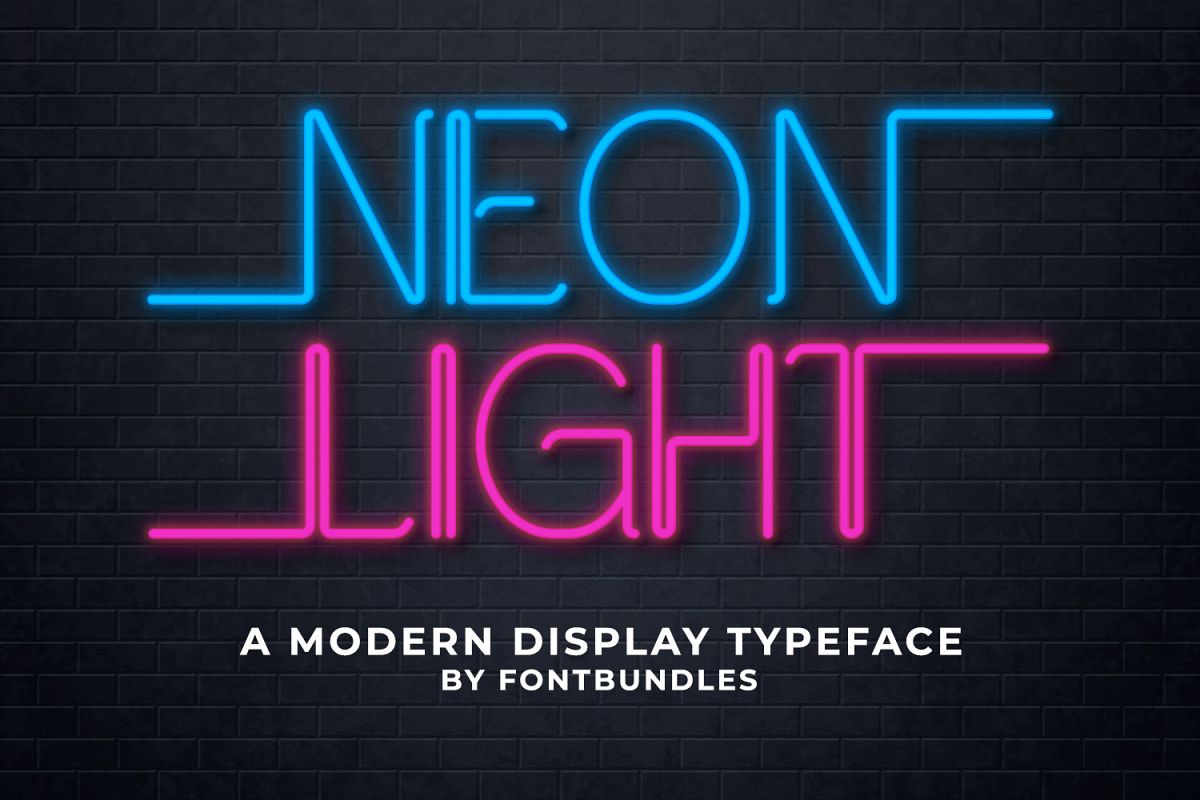
Neon light is a typeface inspired by real world neon light signs. You can create wall art prints, greeting cards, snapchat geofilter designs, invitation designs, t-shirts, and more. This font is perfect for adding your own glowing light effects or can be used to actually design real world neon signs.